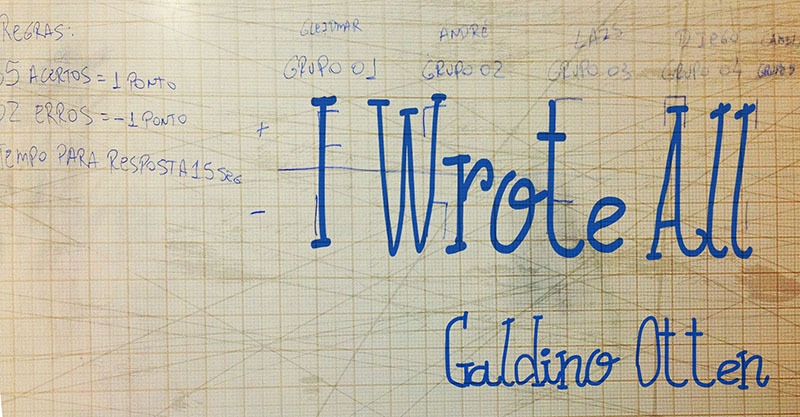
I Wrote All by Galdino Otten is a free handwritten display font with exceptionally tall, narrow letters and a loose ink-drawn finish. Rounded stroke ends, tiny hooks, and wavering lines keep the forms deliberately informal. The uneven heights are especially lively.
Its simple, wiry strokes can echo pen-and-ink doodles or loose cheerful comic illustrations on children's book covers and music posters. That shared hand-drawn quality also suits cafe packaging and craft-market signage, where the lettering can become part of a larger sketch rather than serving only as neat commercial type.